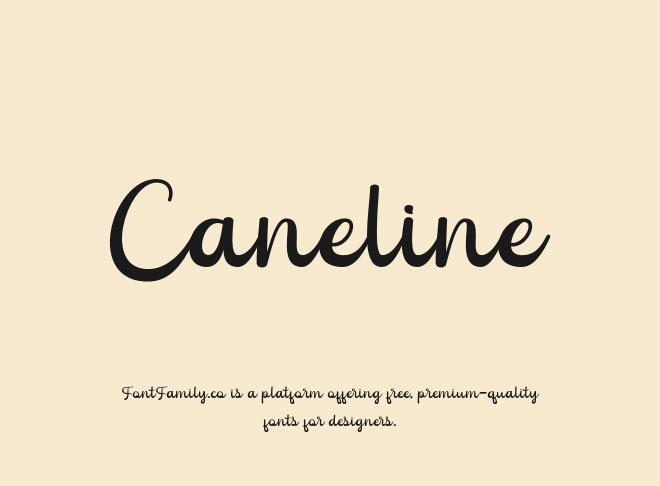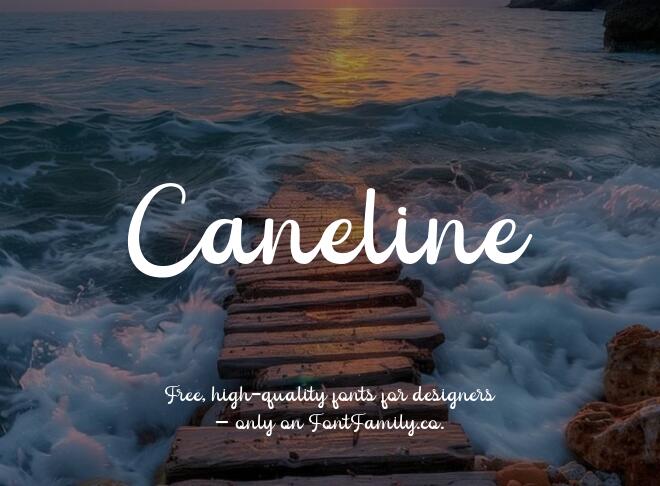
Caneline Font
Caneline Font, designed by Letterhend Studio, is a modern and decorative typeface that offers a unique touch to any design project. With its bold and dynamic characteristics, it is perfect for creating eye-catching headlines, powerful posters, and impactful branding materials. Caneline Font stands out from other fonts with its distinct style and creative flair, making it an excellent choice for designers seeking a fresh look. Its decorative elements add a touch of elegance, while its modern design keeps it relevant for contemporary projects. Whether you are creating a logo, designing a website, or crafting an advertisement, Caneline Font is a versatile option that will enhance your design aesthetics. Its unique style sets it apart, making your design project stand out in the crowd.